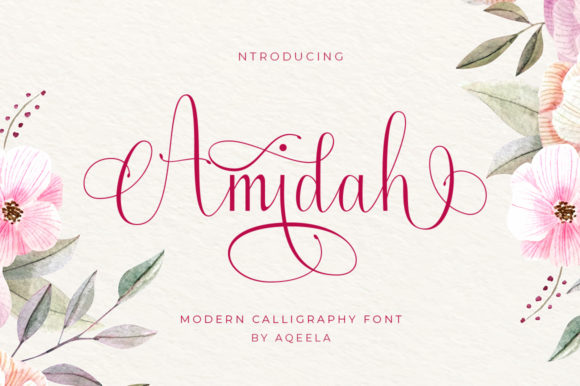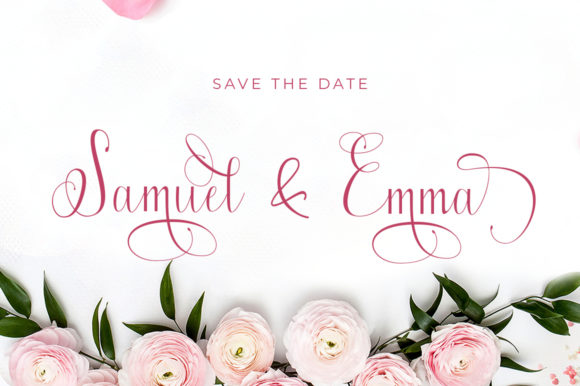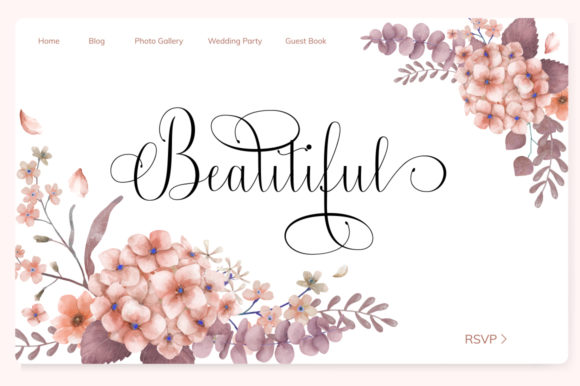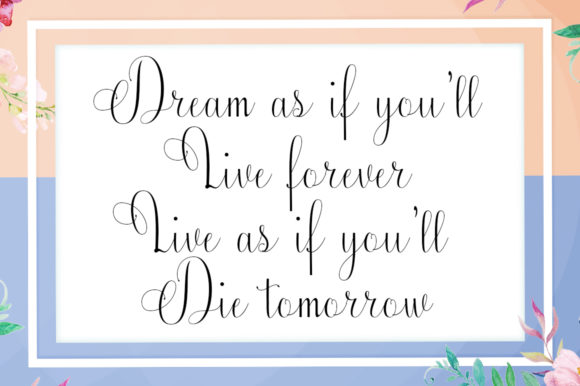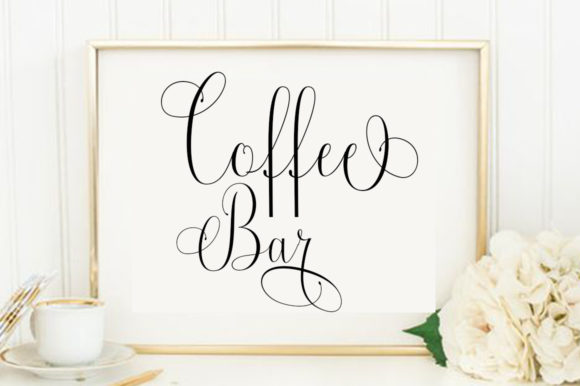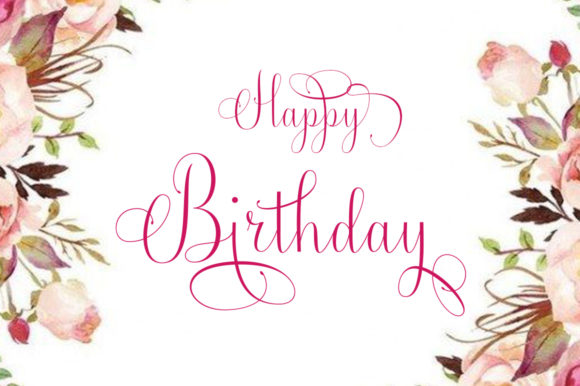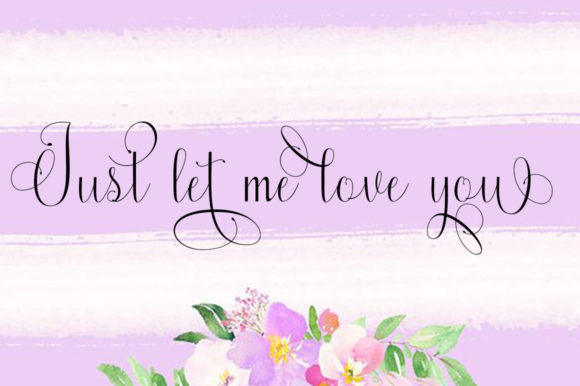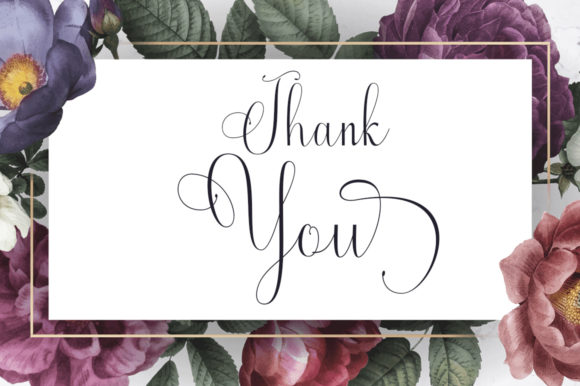
Amidah Font
About Amidah Font
Amidah is a sweet, soft hand-lettered calligraphy font. The playfully rounded characters make it the perfect font for creating stunning Valentine’s Day art. Amidah comes packed with gorgeous PUA encoded swashes, that will allow you to add a decorative touch within seconds. Get inspired by its personal and playful feel and use it to create gorgeous wedding invitations, beautiful stationary art, eye-catching social media posts, and cute greeting cards.